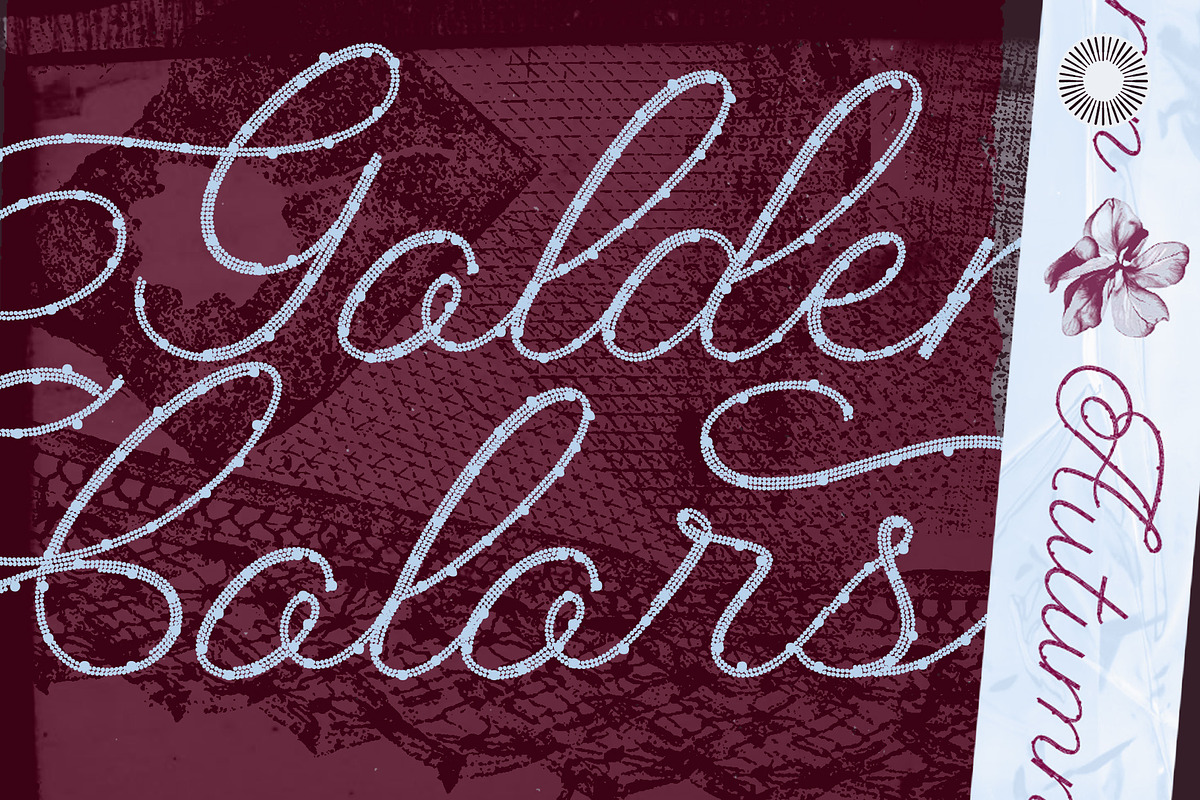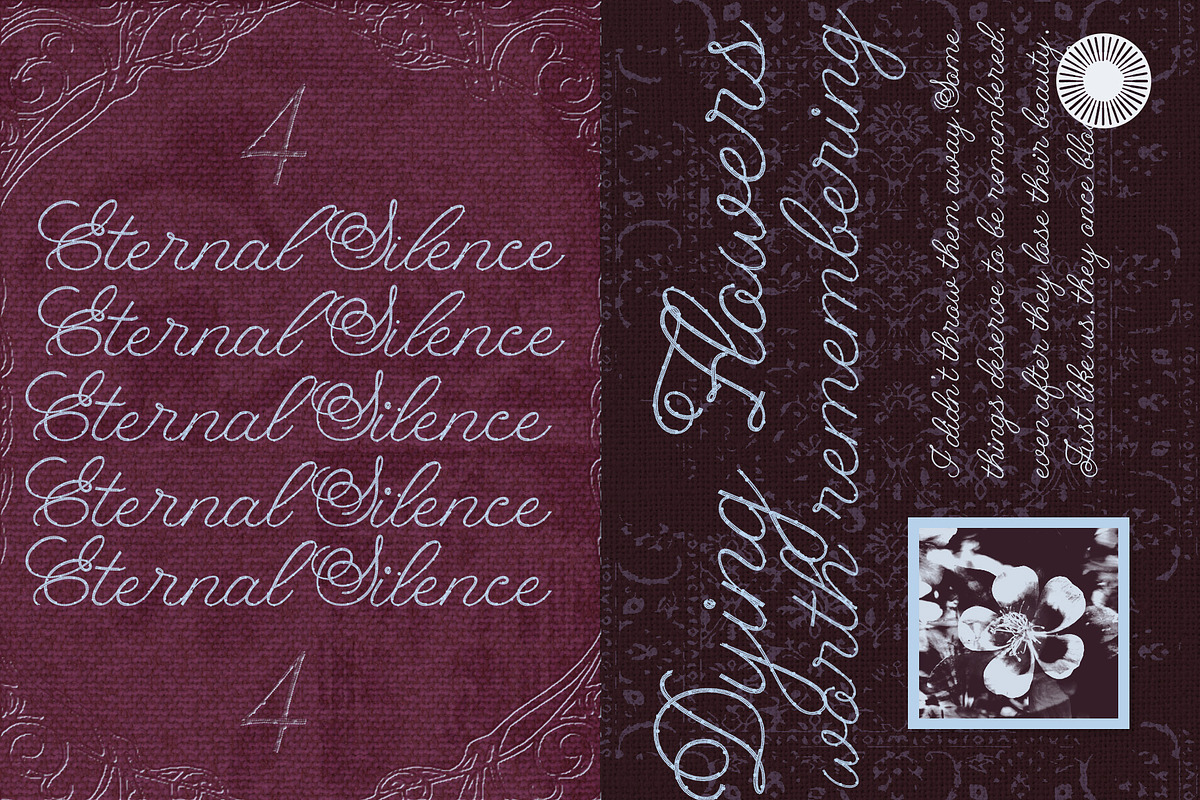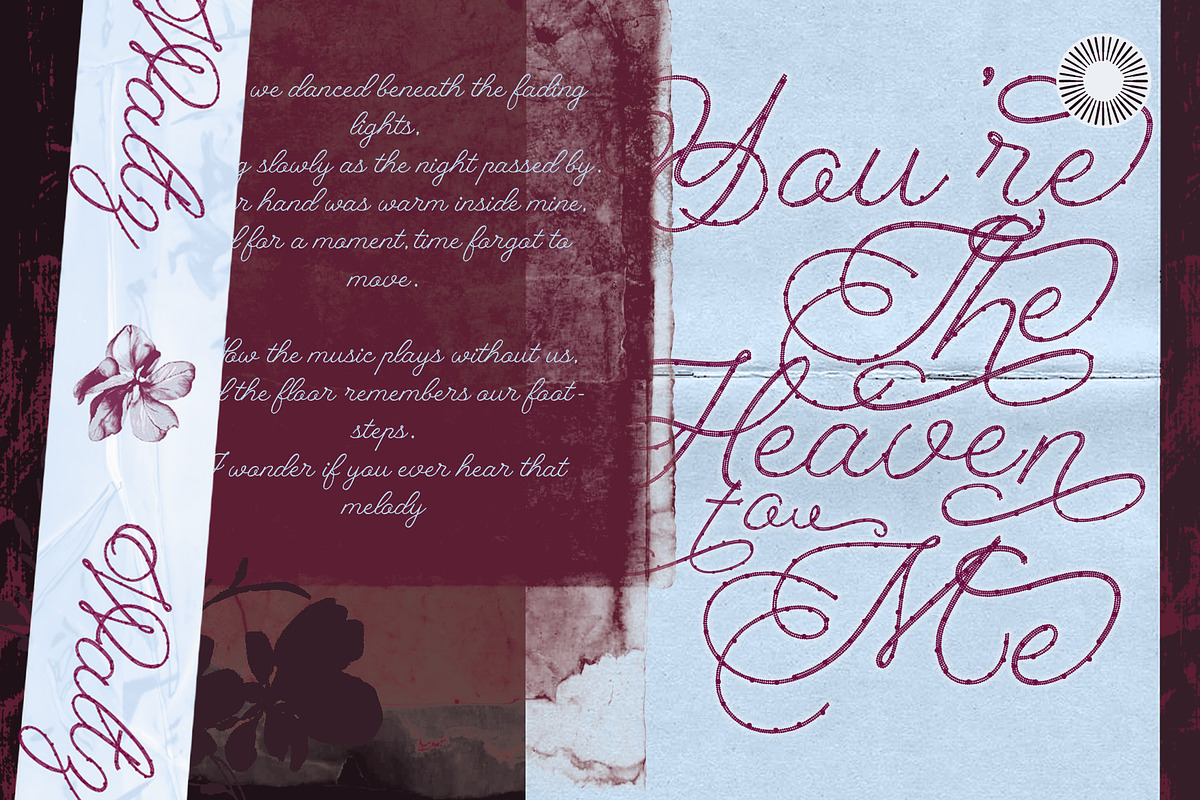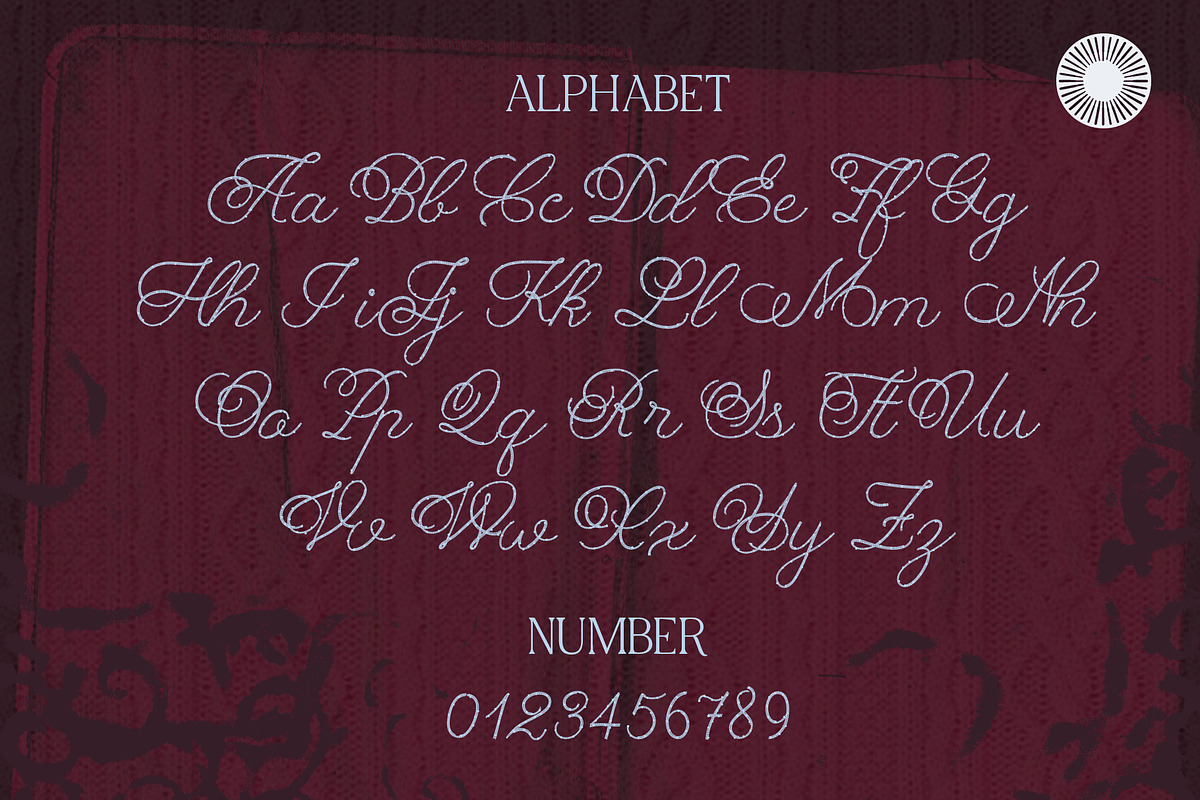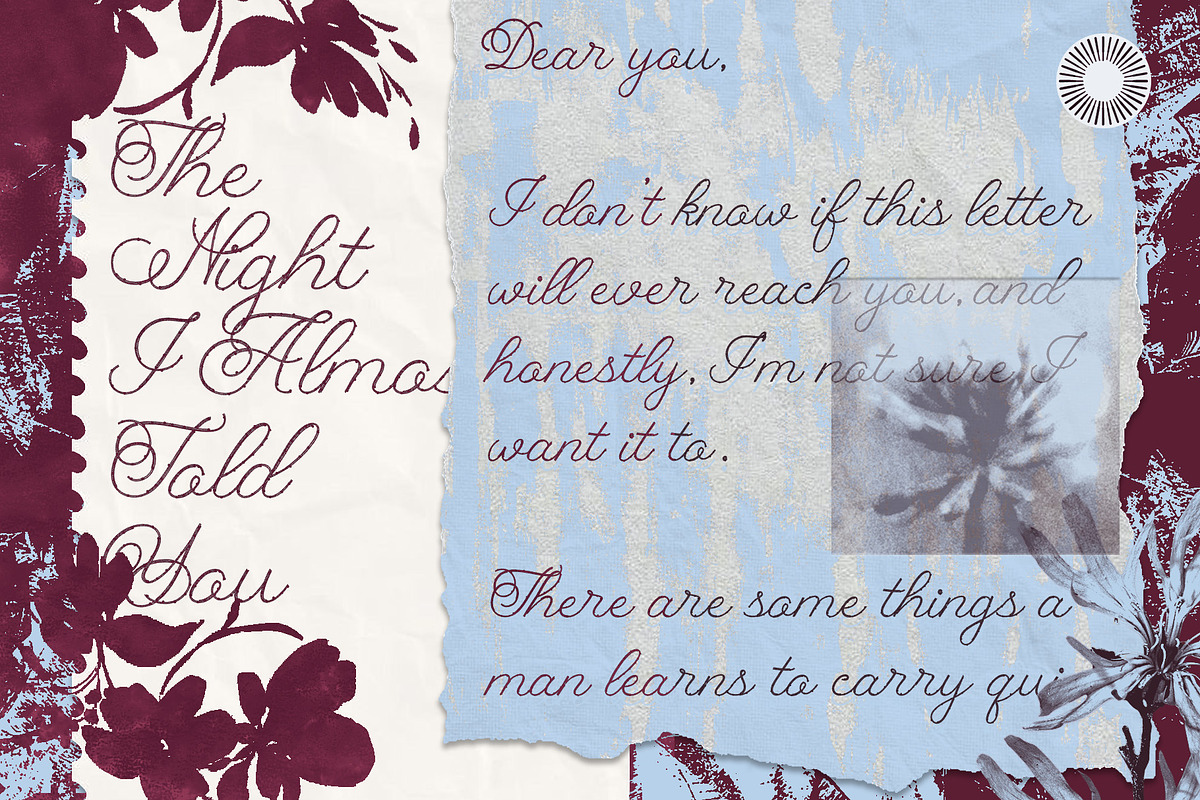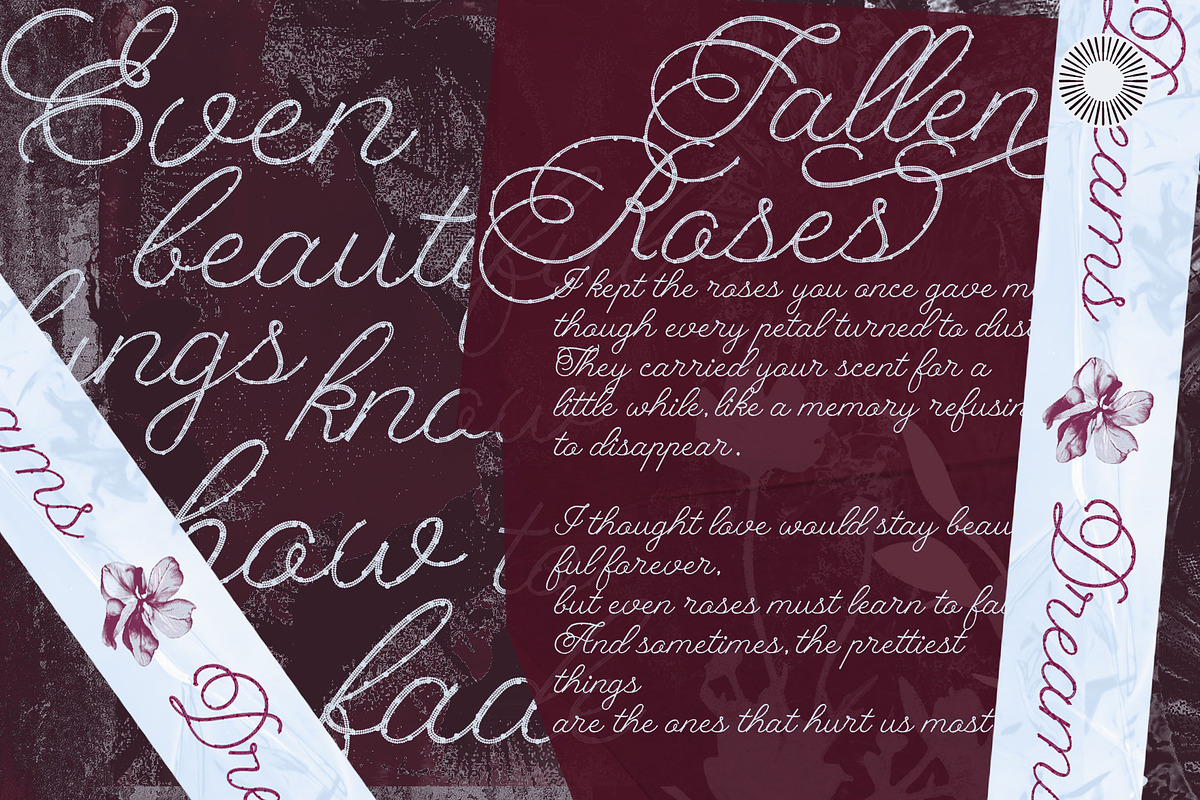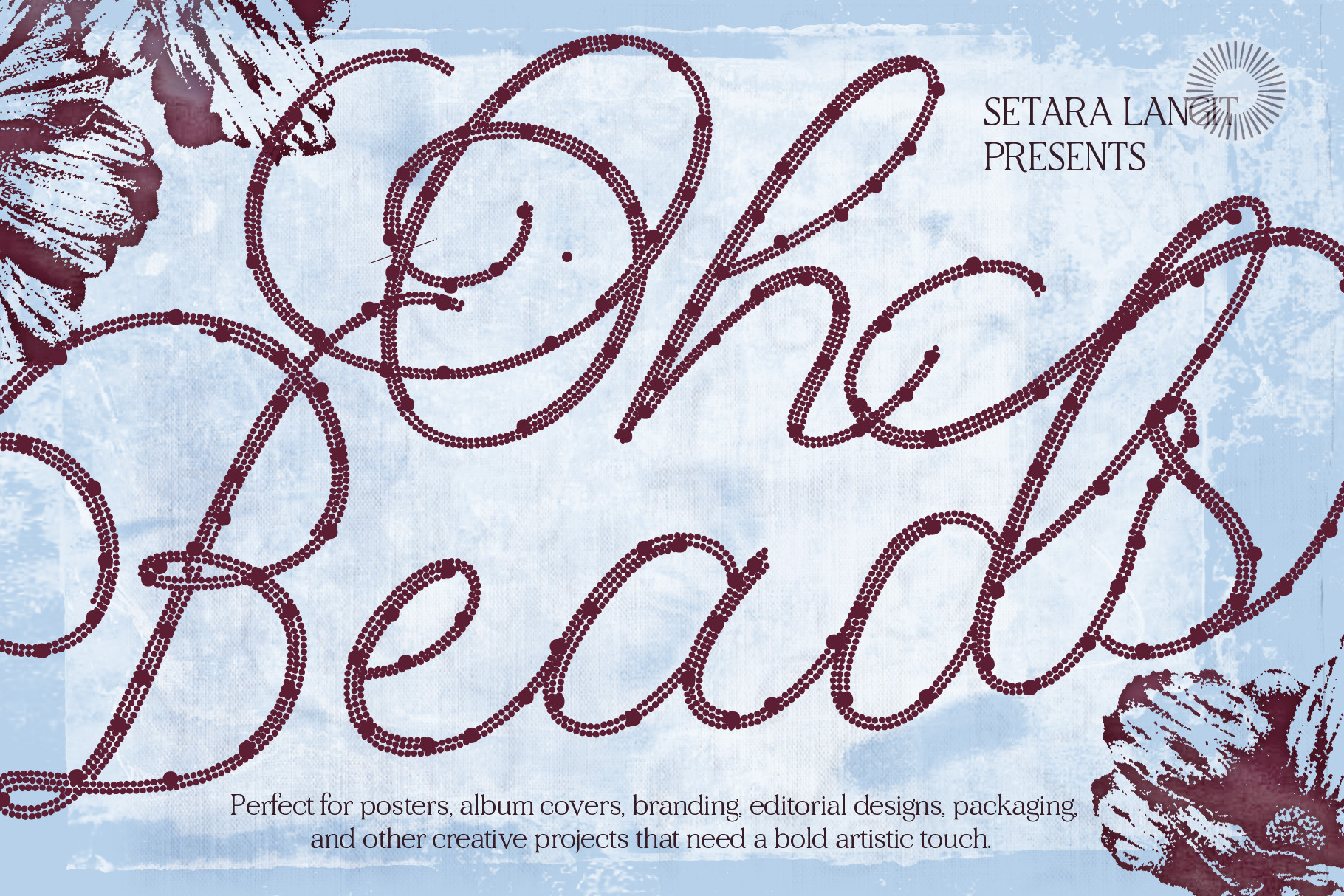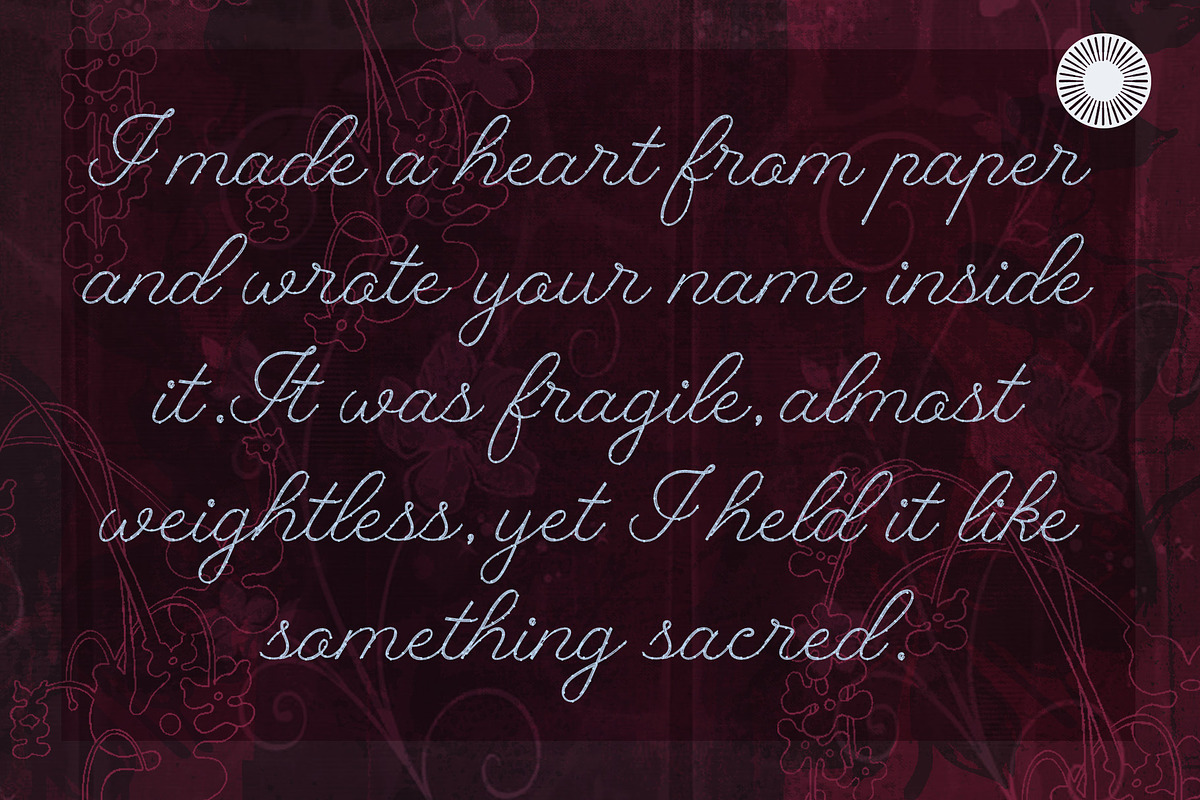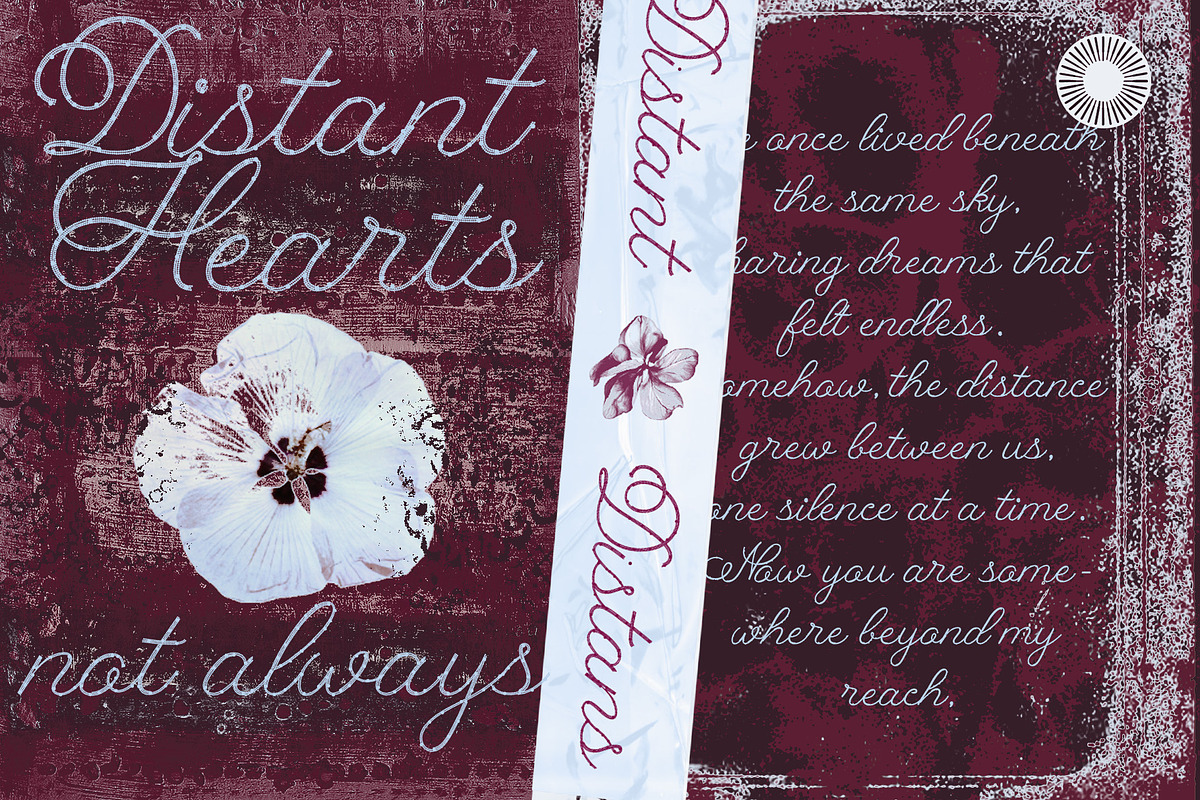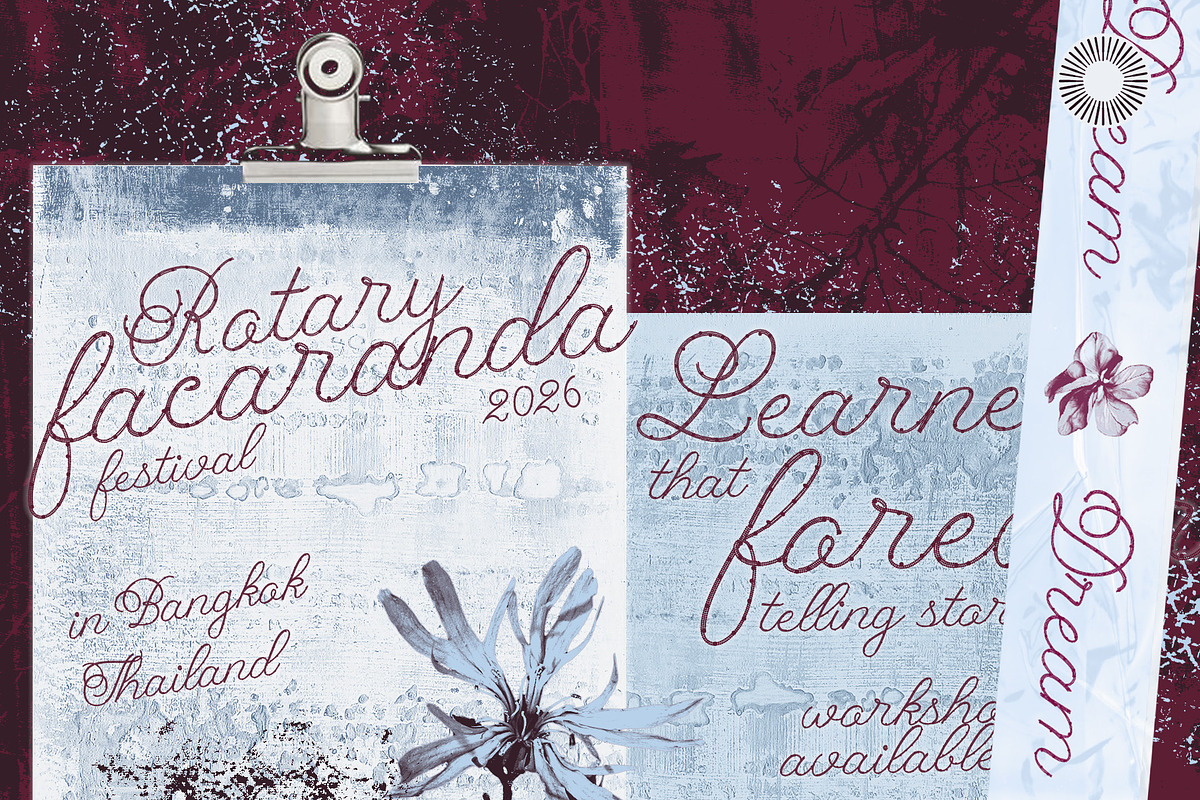
Oh Beads - Beaded Script Font
Oh Beads – Decorative Beaded Script Font
Oh Beads is a decorative handwritten script font inspired by the delicate texture and tactile beauty of beads, handcrafted details, and ornamental lettering.
Its flowing script letterforms are enriched with a distinctive beaded texture, creating a unique visual rhythm that feels handmade, expressive, and slightly nostalgic. The combination of elegant curves and textured details makes Oh Beads stand out from ordinary handwritten and calligraphy fonts.
Use it when you want your typography to feel crafted, decorative, feminine, and full of texture. Oh Beads works beautifully for fashion and lifestyle branding, packaging, editorial artwork, invitations, posters, album artwork, social media graphics, and creative merchandise.
Best For
Fashion Branding
Jewelry Branding
Beauty Branding
Lifestyle Branding
Editorial Design
Posters
Album Artwork
Music Artwork
Invitations
Greeting Cards
Stationery
Creative Campaigns